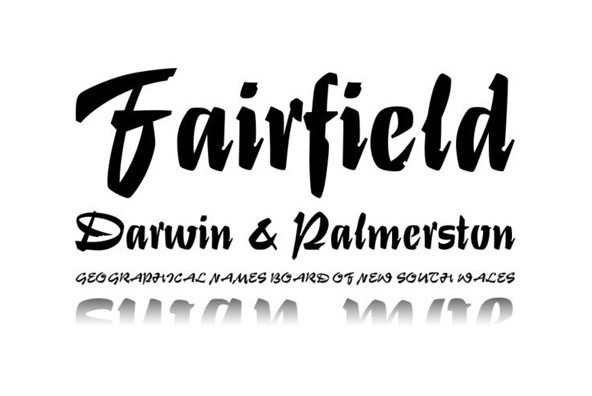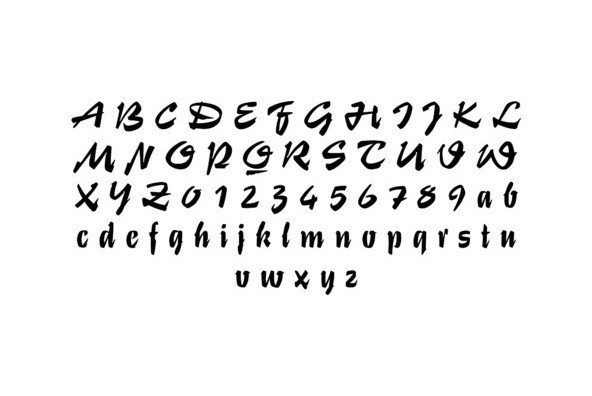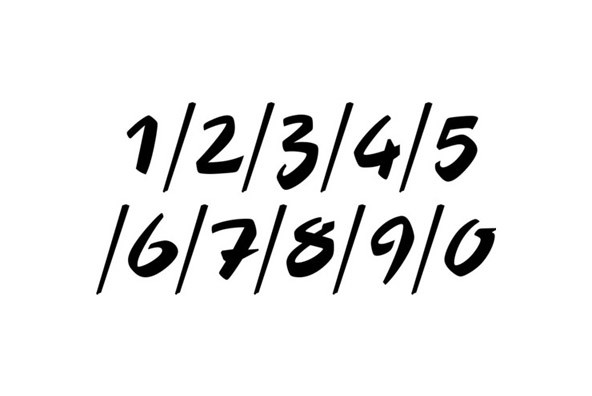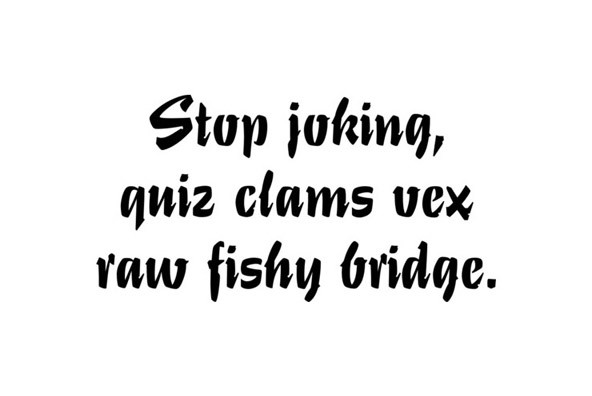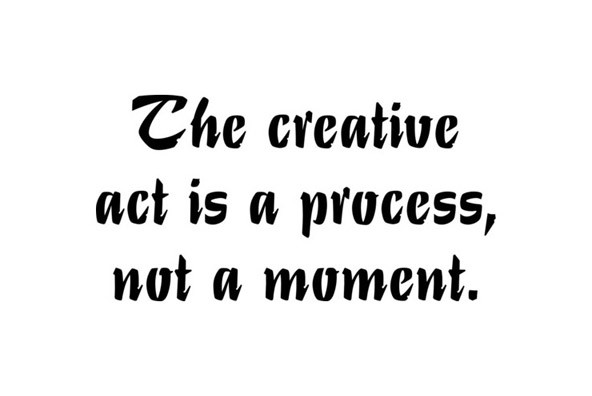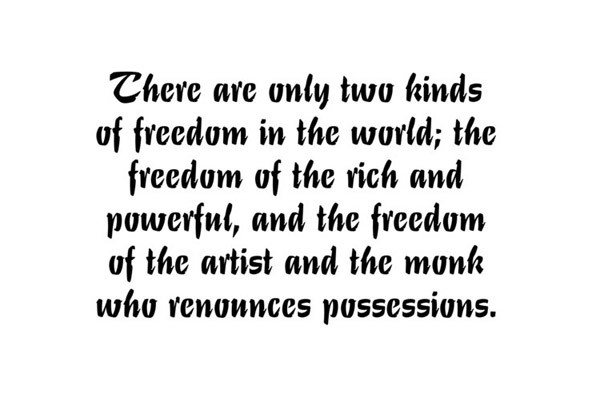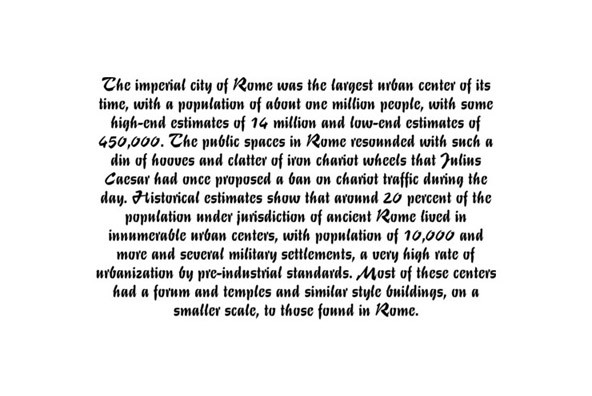
Designed by Heinz Schumann in 1964, Stentor is a calligraphic script release by URW. Contains language support for West, East, Turkish, Baltic, and Romanian.